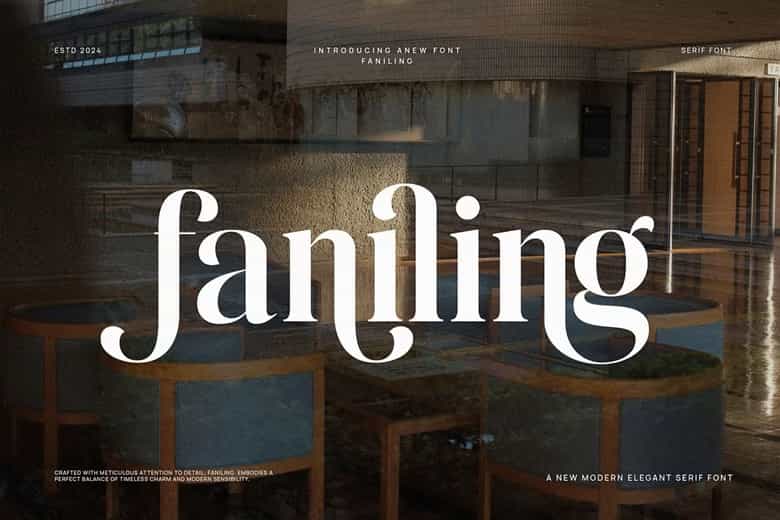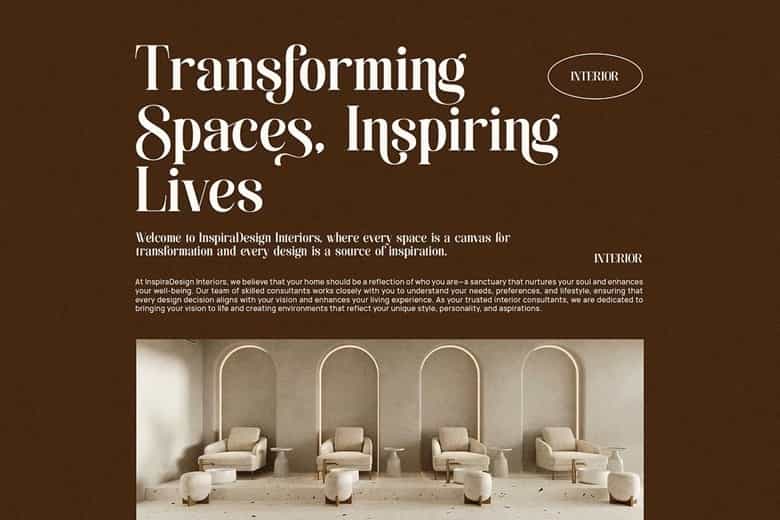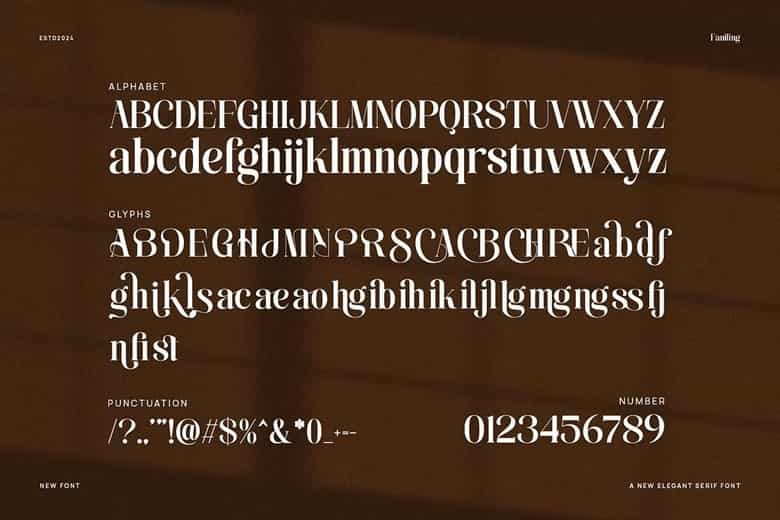
Discover Faniling Font, part of the Serif collection—a versatile and unique font perfect for adding a personal touch to your projects. Download it for free and enjoy crafting designs with style, from invitations to social media posts. This font is available exclusively for personal use, giving you the freedom to create without limits. Unlock your creativity with Faniling Font today!
The Faniling typeface helps your designs look smart, special, and polished. Apply it to headlines, titles, projects for branding, logo design, packaging, magazine headings, advertising, short messages, long texts, social media networks, and a lot of other uses.